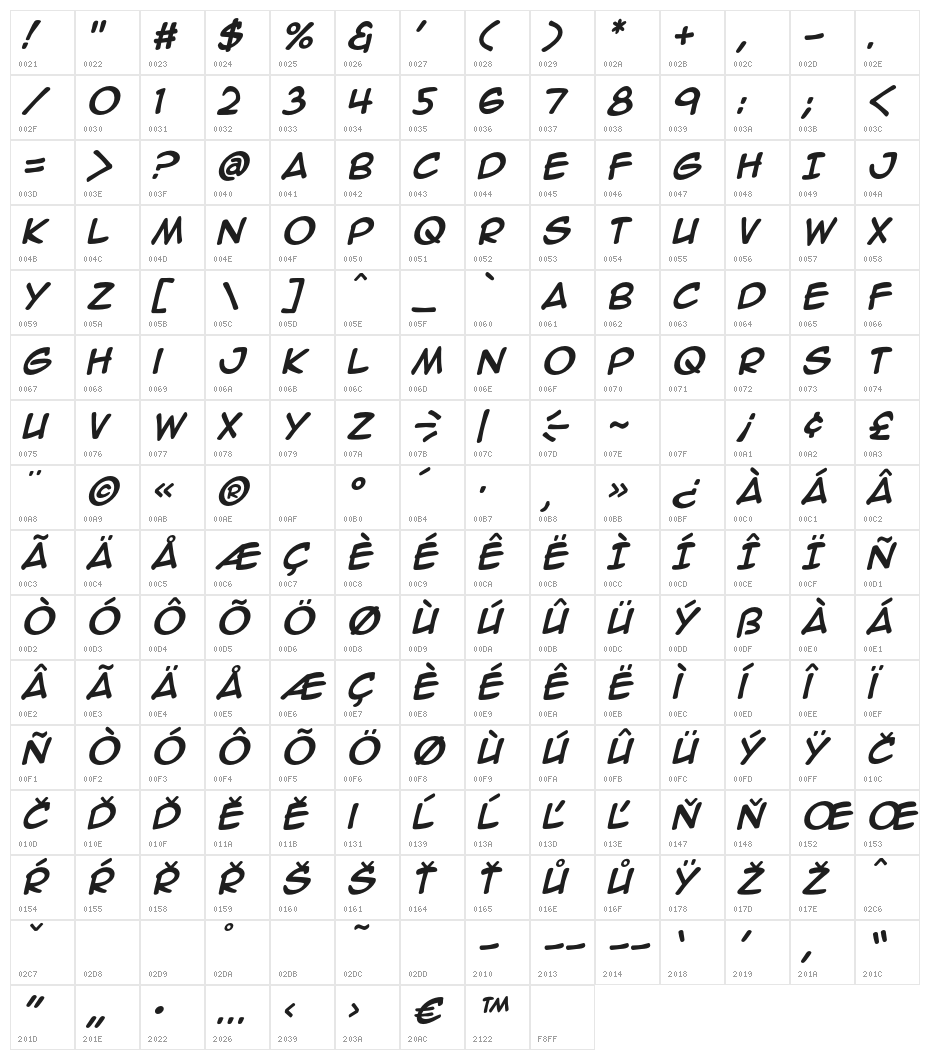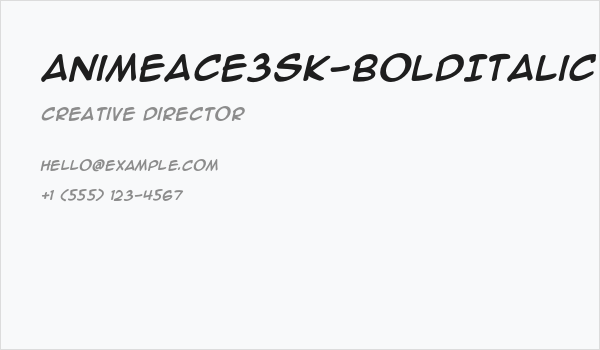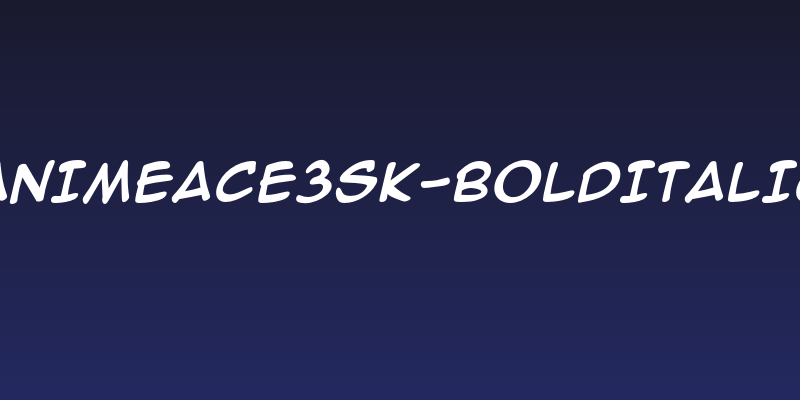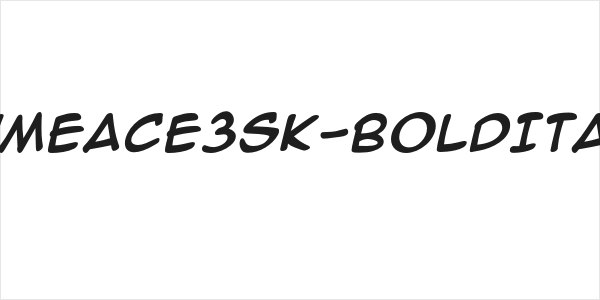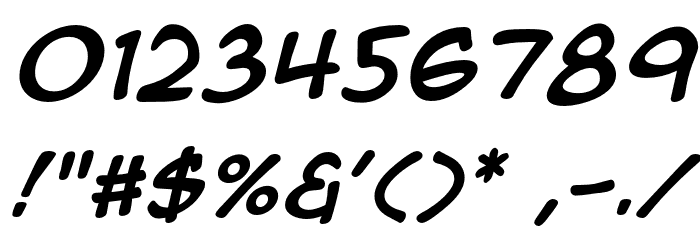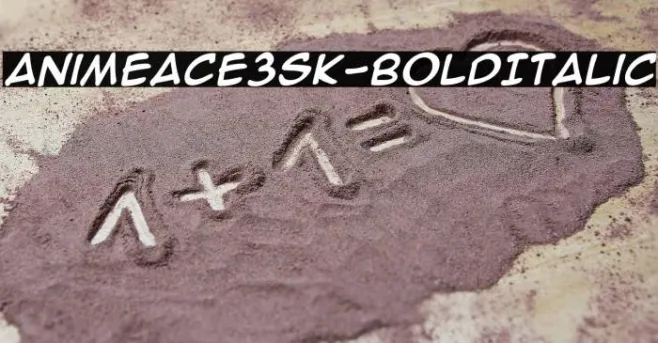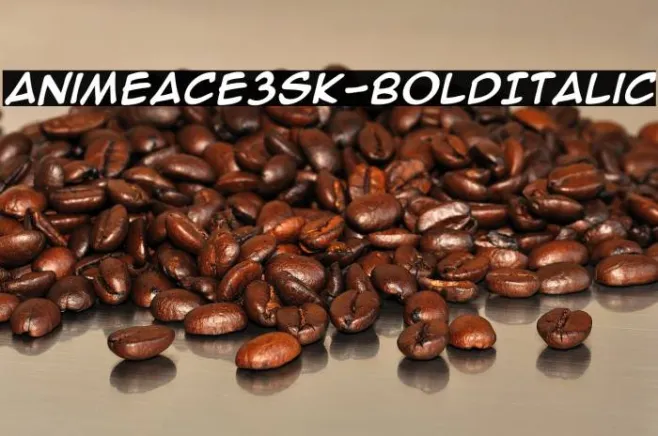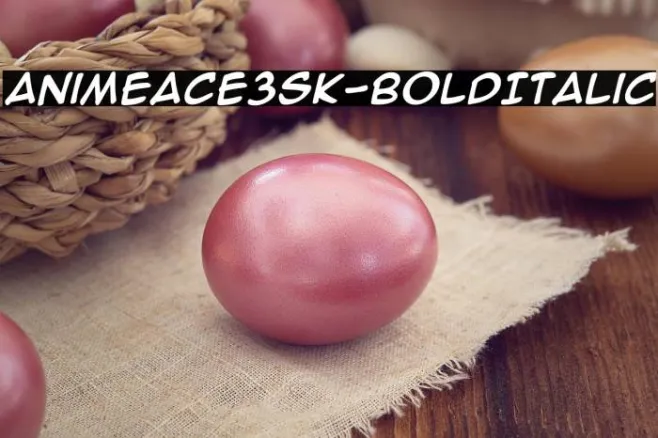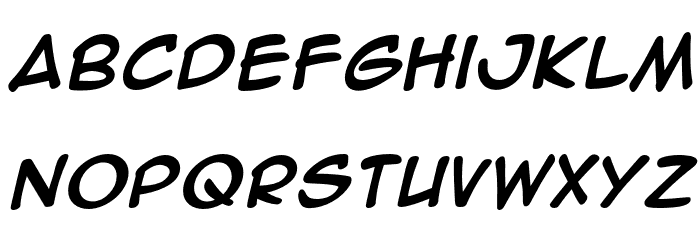
AnimeAce3SK-BoldItalic Font
AnimeAce3SK-BoldItalic Description
This font features a playful and dynamic style, characterized by its bold and italicized form. The letters are slightly slanted, giving a sense of motion and energy. The strokes are thick and rounded, providing a friendly and approachable appearance. The uppercase and lowercase letters maintain a consistent style, with smooth curves and a uniform weight throughout. The numbers and special characters are designed to match the overall aesthetic, ensuring a cohesive look. This font is ideal for projects that require a lively and informal touch.
| Font Family | Anime Ace 3 SK |
| Overall Style | Playful and dynamic |
| Proposed Projects | Comic books, children's books, playful branding, informal posters, and creative social media graphics. |